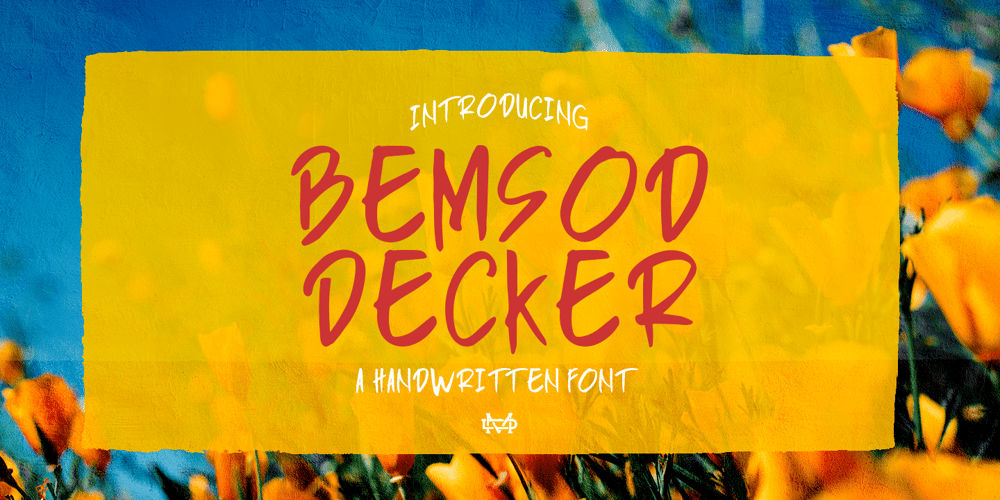
Bemsod Decker Font Family was designed by madededuk and published by madeDeduk. Bemsod Decker contains 1 styles and family package options. Introducing Bemsod Decker is a casual handwritten font and will be perfect for book, title branding, product packaging, invitation, quotes, label, poster, logo etc.Feature Uppercase & Lowercase Number & Symbol International Glyphs Multilingual support Alternative Ligature Feel free to drop us a message any time and follow my shop for upcoming updatesHope you enjoy it.